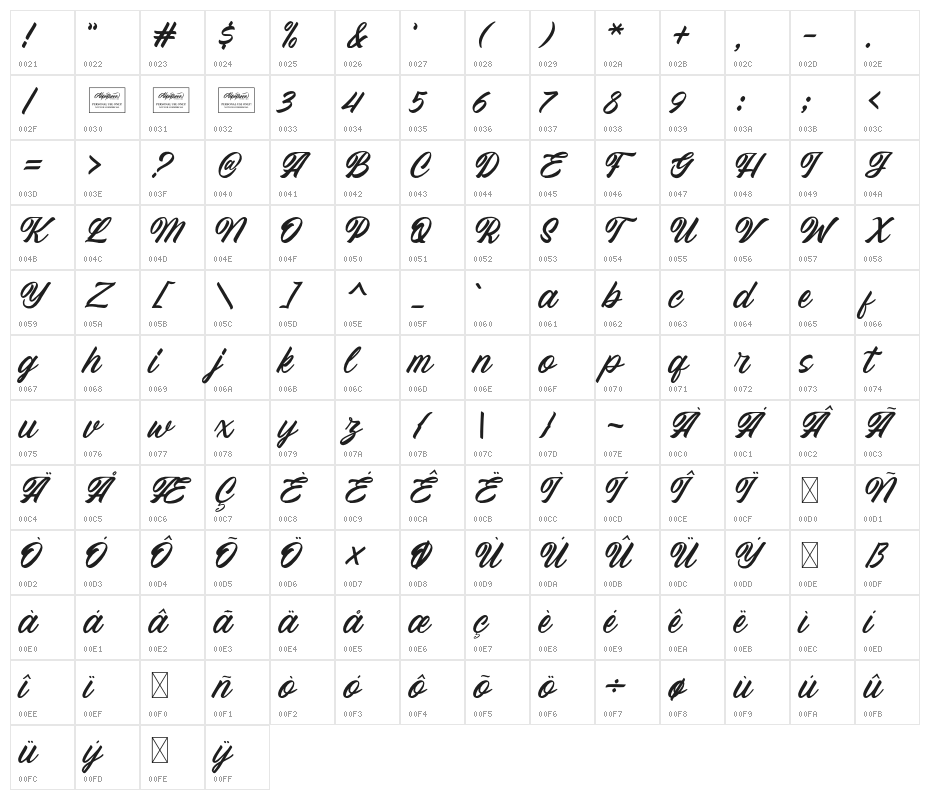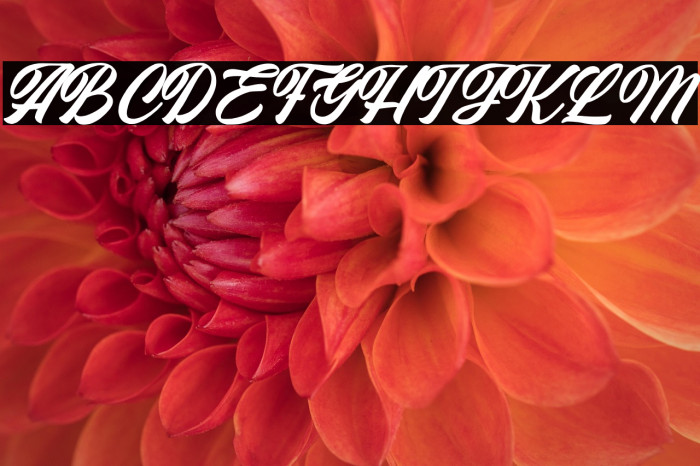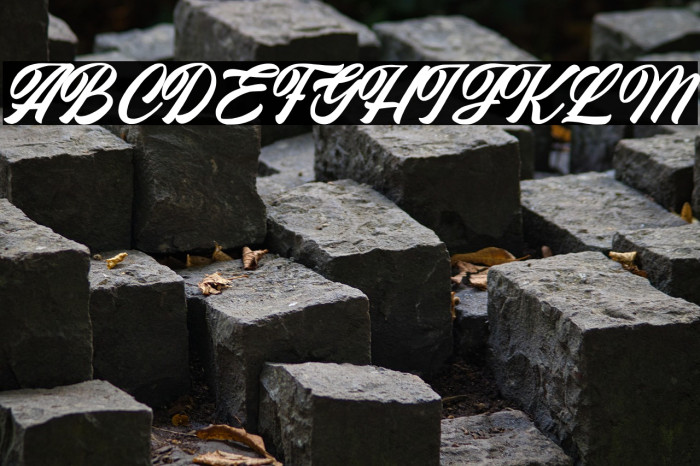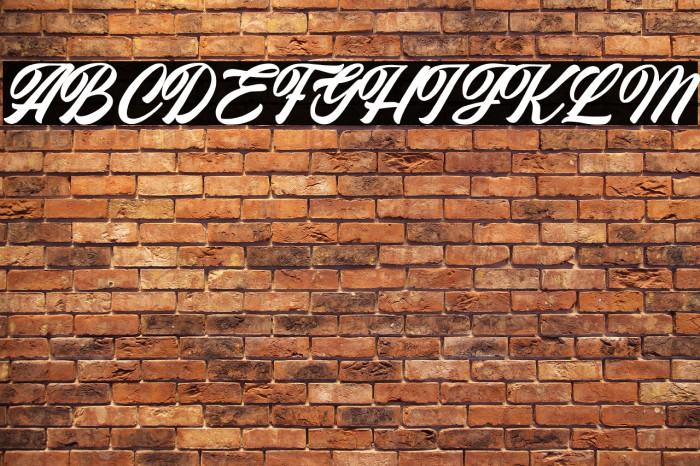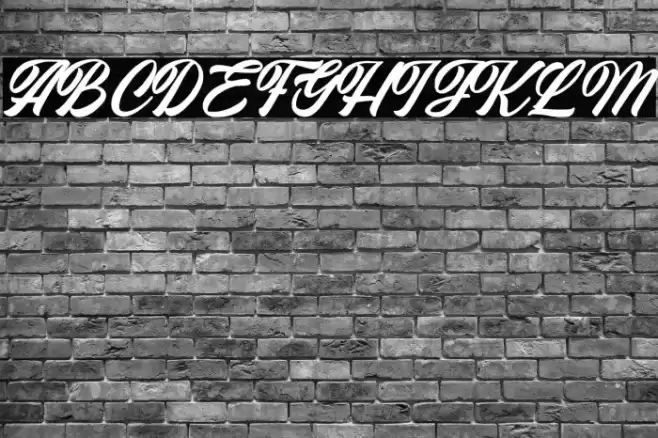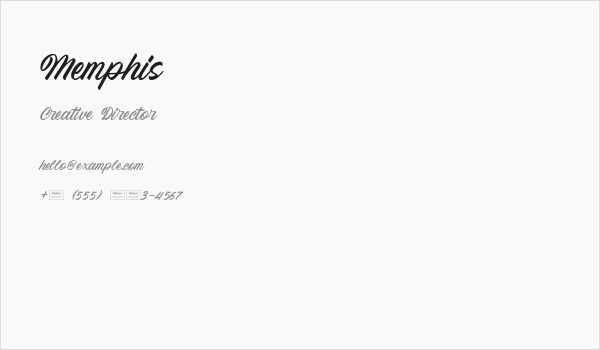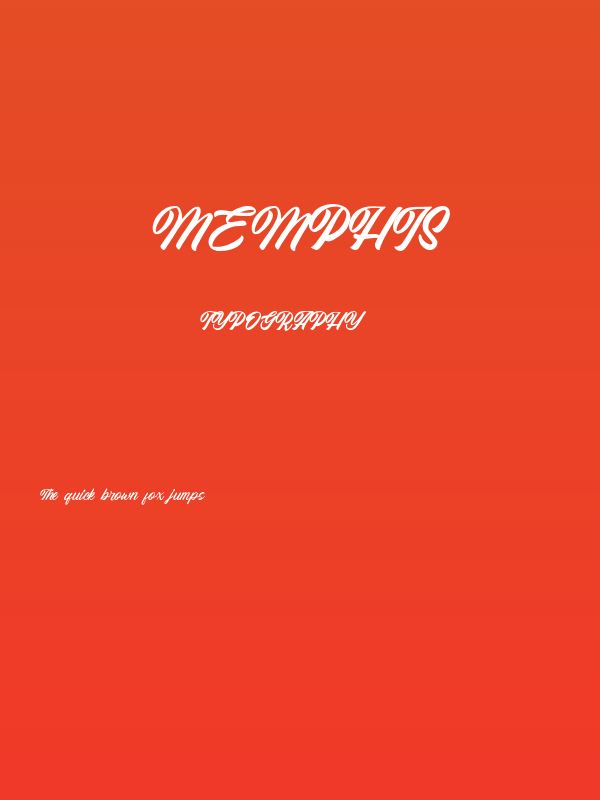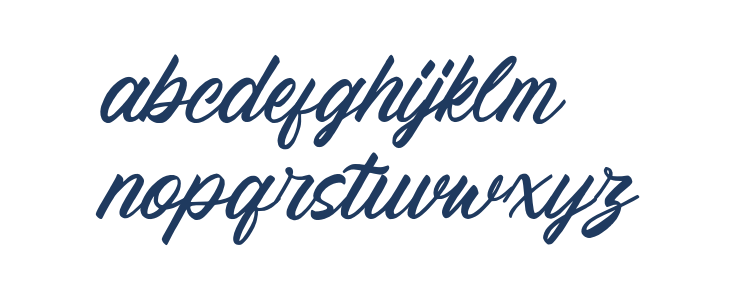
Memphis Font
Memphis Description
This font features a dynamic and flowing script style, characterized by its elegant and connected letterforms. The uppercase letters exhibit a bold and confident presence, while the lowercase letters maintain a smooth and cursive appearance. The numerals are consistent with the overall script style, offering a cohesive look. Special characters are designed to complement the script, maintaining the same fluidity and elegance. This font is suitable for projects that require a personal and artistic touch, such as invitations, branding, and decorative designs.
| Proposed Projects | Ideal for wedding invitations, branding, greeting cards, and decorative projects. |